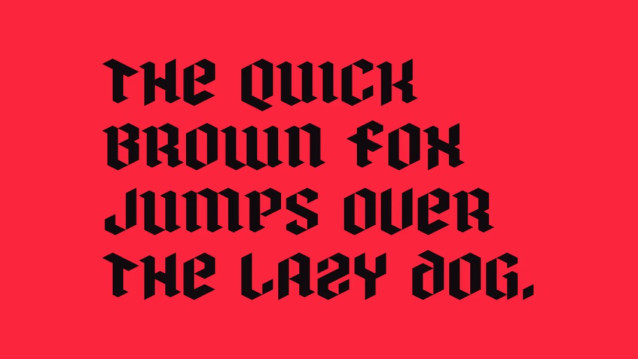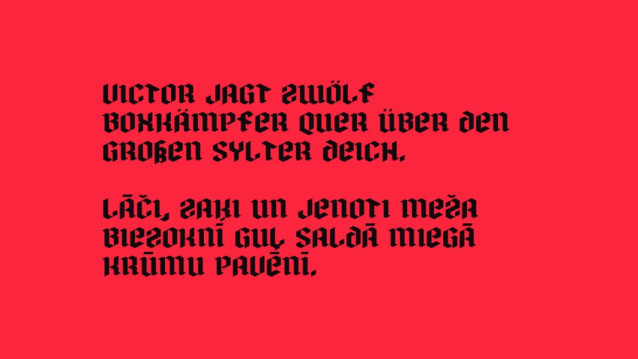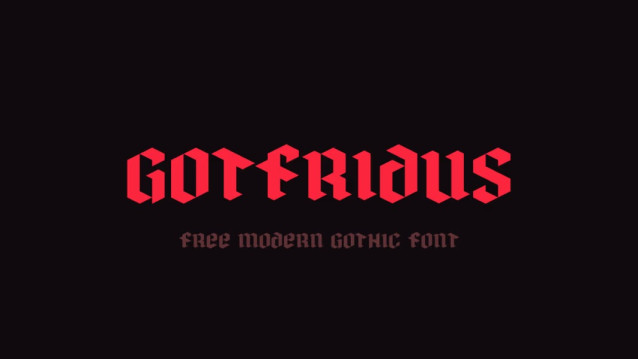
Gotfridus Font
Gotfridus Font is a brutalist, modern interpretation of the blackletter tradition, defined by its heavy, blocky construction and aggressive, geometric rhythm. The typeface features a low-contrast, monoline-adjacent stroke weight that abandons delicate calligraphic flourishes in favor of hard-edged, crystalline structures. Each letterform is built with sharp, angular cuts and flat, blocky terminals, creating a dense, architectural texture that feels both ancient and industrial.
This typeface is perfectly suited for high-impact editorial mastheads, heavy metal album artwork, and contemporary streetwear branding. Its imposing presence and rigid, mechanical cadence demand attention, making it an ideal choice for bold poster designs, packaging for craft spirits, and digital layouts seeking a raw, counter-culture aesthetic.